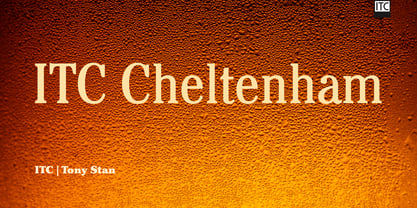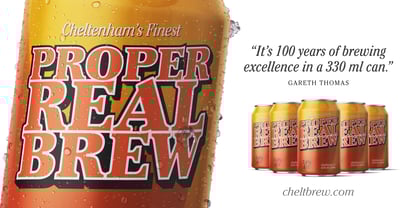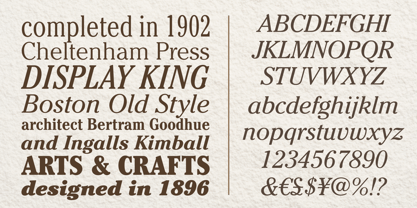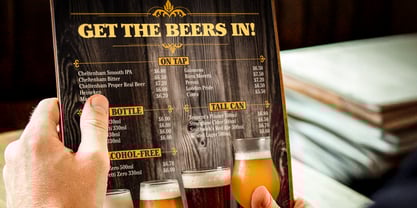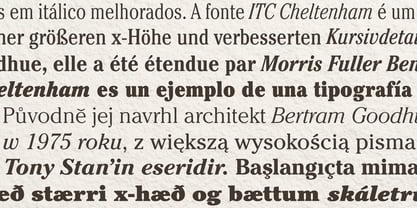
ITC Cheltenham®
The ITC Cheltenham Font Family was designed by Tony Stan and published by ITC. ITC Cheltenham contains 16 styles and family package options. More about this family
Since the ITC Cheltenham’s release in the early 1900s, “Chelt” (as the old-timers call it) has drawn criticism for being ungainly. But designers of the time fell in love with the design, making it one of the most successful typefaces of its day. In recent decades, ITC Cheltenham continues to be used in branding, print, and display contexts by entities as diverse as LL Bean and The New York Times. It remains a favorite among designers who appreciate its readability and versatility.
The original Cheltenham suffered from a diminutive x-height. In the mid-1970s, however, ITC commissioned Tony Stan to revitalize the design and correct a few of its shortcomings. The first thing Stan did was enlarge Cheltenham’s x-height. This dramatically improved the aesthetics of the face. Counters are now more open, and the lowercase proportions are in keeping with the caps. With this single change, Stan transformed a dated display design into a straightforward, no-nonsense typeface that serves well in both text and display applications.